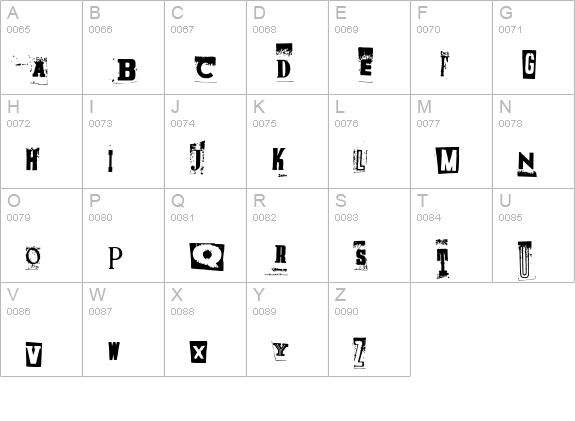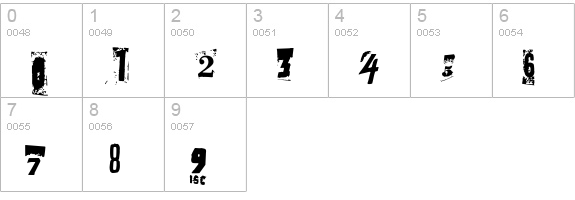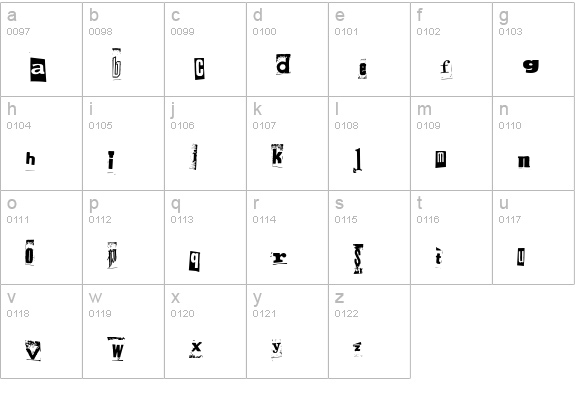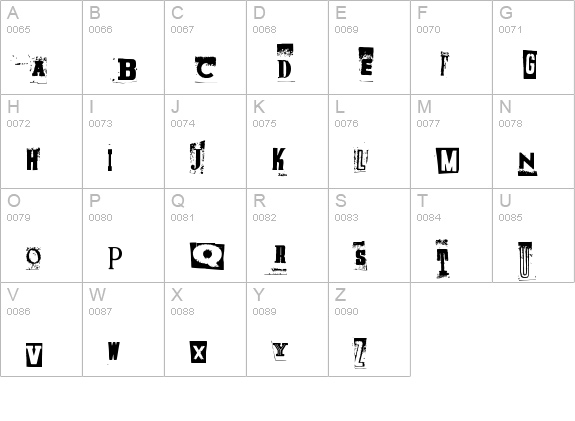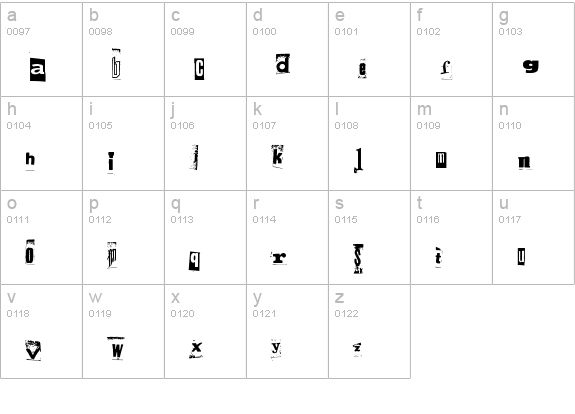
PiratesStoertebecker Font Details
PiratesStoertebecker font, a captivating and adventurous typeface, brings the spirit of the high seas to your design projects. Inspired by the daring exploits of the legendary pirate, PiratesStoertebecker font embodies the thrill and excitement of the golden age of piracy. With its bold and rugged letterforms, this font captures the essence of the swashbuckling lifestyle, evoking images of treasure maps, hidden coves, and thrilling escapades. Designed with meticulous attention to detail, PiratesStoertebecker font is perfect for adding a touch of daring to various design projects. Whether you're creating a logo for a pirate-themed brand, designing a poster for a themed event, or crafting a headline that demands attention, this font will help you make a bold statement. Its strong and distinct characters are visually striking and command attention, making it a great choice for any design that needs to stand out. One of the best features of PiratesStoertebecker font is that it is freely available to download at FontsMarket.com. This means that you can easily access and use this remarkable font without any cost. With its generous availability, PiratesStoertebecker font offers designers the opportunity to unleash their creativity without any limitations. Whether you're a professional designer or an aspiring artist, this font provides you with the freedom to explore and experiment, allowing your imagination to run wild. So, set sail on a typographic adventure with PiratesStoertebecker font. Download it today from FontsMarket.com and embark on a journey that will bring excitement and intrigue to your design projects. With its captivating design and the freedom it offers, PiratesStoertebecker font is sure to become an essential tool in your creative arsenal. Unleash your inner pirate and let your designs make a splash with this exceptional font.